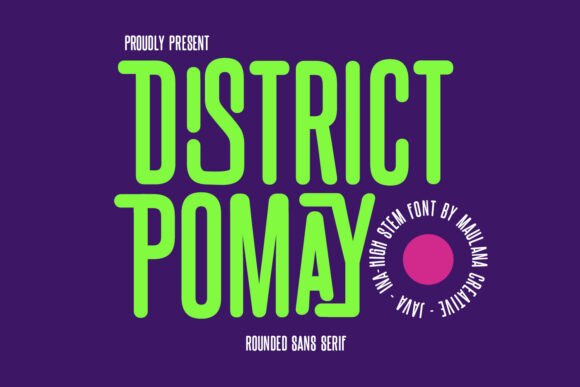
Discover the Elegance of District Pomay Font: A Clean and Modern Rounded Sans Serif
In the realm of typography, fonts play a pivotal role in conveying messages, evoking emotions, and creating lasting impressions. Among the myriad of fonts available, District Pomay stands out as a beacon of modernity and elegance. This clean and modern rounded sans serif font has been gaining popularity for its unique blend of friendliness and sophistication, making it an ideal choice for designers and brands looking to make a statement.
The Distinctive Features of District Pomay Font
District Pomay is characterized by its smooth, curved edges that lend it a friendly and approachable appearance. Unlike traditional sans serif fonts that can sometimes come off as stark or cold, District Pomay strikes a perfect balance between modernity and warmth. Its rounded features make it instantly more inviting and accessible, perfect for designs that aim to connect with their audience on a more personal level.
Versatility in Use
One of the key strengths of District Pomay is its versatility. This font is not just limited to headlines; it’s equally effective in body text. Its clean design ensures that it remains highly legible, even at smaller sizes, making it perfect for long-form content. Whether you’re designing a website, a brochure, or a social media post, District Pomay can adapt seamlessly, providing a cohesive and professional look across all your materials.
The Benefits of Using District Pomay
There are several benefits to using District Pomay in your designs:
- Contemporary Feel: District Pomay gives your designs a soft, contemporary feel that’s hard to achieve with more traditional fonts.
- Readability: Its clean and rounded design makes it easy to read, perfect for both digital and print media.
- Versatility: It can be used across a wide range of design projects, from websites and blogs to magazines and branding materials.
- Friendliness: The rounded edges give it a friendly vibe that’s perfect for brands looking to appear approachable and welcoming.
How to Use District Pomay Effectively
To make the most out of District Pomay, consider the following tips:
- Mix and Match: Use District Pomay in combination with other fonts to create visual interest. Its clean design pairs well with a wide range of typography.
- Consider Size: While District Pomay is legible at smaller sizes, it truly shines in larger headlines and titles. Use size variations to create hierarchy and emphasis in your design.
- Play with Colors: The neutral feel of District Pomay makes it a great canvas for experimenting with color. Choose colors that reflect your brand’s personality and evoke the desired emotional response.
Who Can Benefit from District Pomay?
District Pomay’s unique blend of modernity and friendliness makes it suitable for a wide range of projects and industries. Here are a few examples:
- Startups and Tech Companies: For startups and tech companies looking to establish a modern and approachable brand image, District Pomay can be a great choice.
- Creative Agencies: Creative agencies can use District Pomay to add a touch of sophistication and elegance to their portfolios and client materials.
- E-commerce Brands: E-commerce brands can benefit from using District Pomay to create a welcoming and user-friendly shopping experience.
District Pomay font offers a refreshing alternative to traditional typography. Its clean, modern, and rounded design makes it an excellent choice for designers and brands aiming to create a friendly yet sophisticated image. With its versatility, readability, and contemporary feel, District Pomay is poised to make a significant impact in the world of design. Whether you’re working on a digital project or a print material, District Pomay is definitely worth considering for your next design endeavor.
Incorporating District Pomay into your typography arsenal can elevate your designs, making them more engaging, approachable, and memorable. As the design landscape continues to evolve, fonts like District Pomay lead the way, offering fresh perspectives and new possibilities for creative expression.